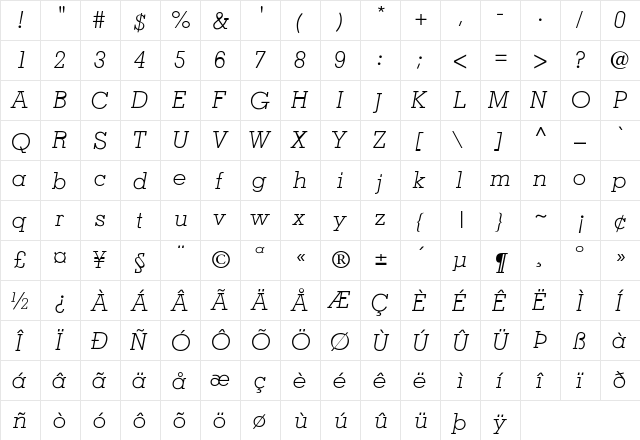
Memphis-LightItalic Regular Font Preview
Memphis-LightItalic Regular
Memphis-LightItalic Regular Font Details
Design Context for Memphis-LightItalic Typeface
Memphis-LightItalic is a composed and adaptable typeface that performs quietly and consistently across a wide range of design contexts. Its italic angle brings a sense of urgency and motion to the letterforms. The delicate stroke weight brings airiness and refinement to layouts.